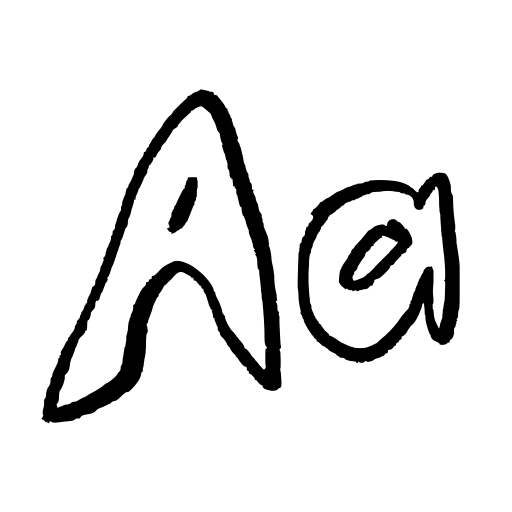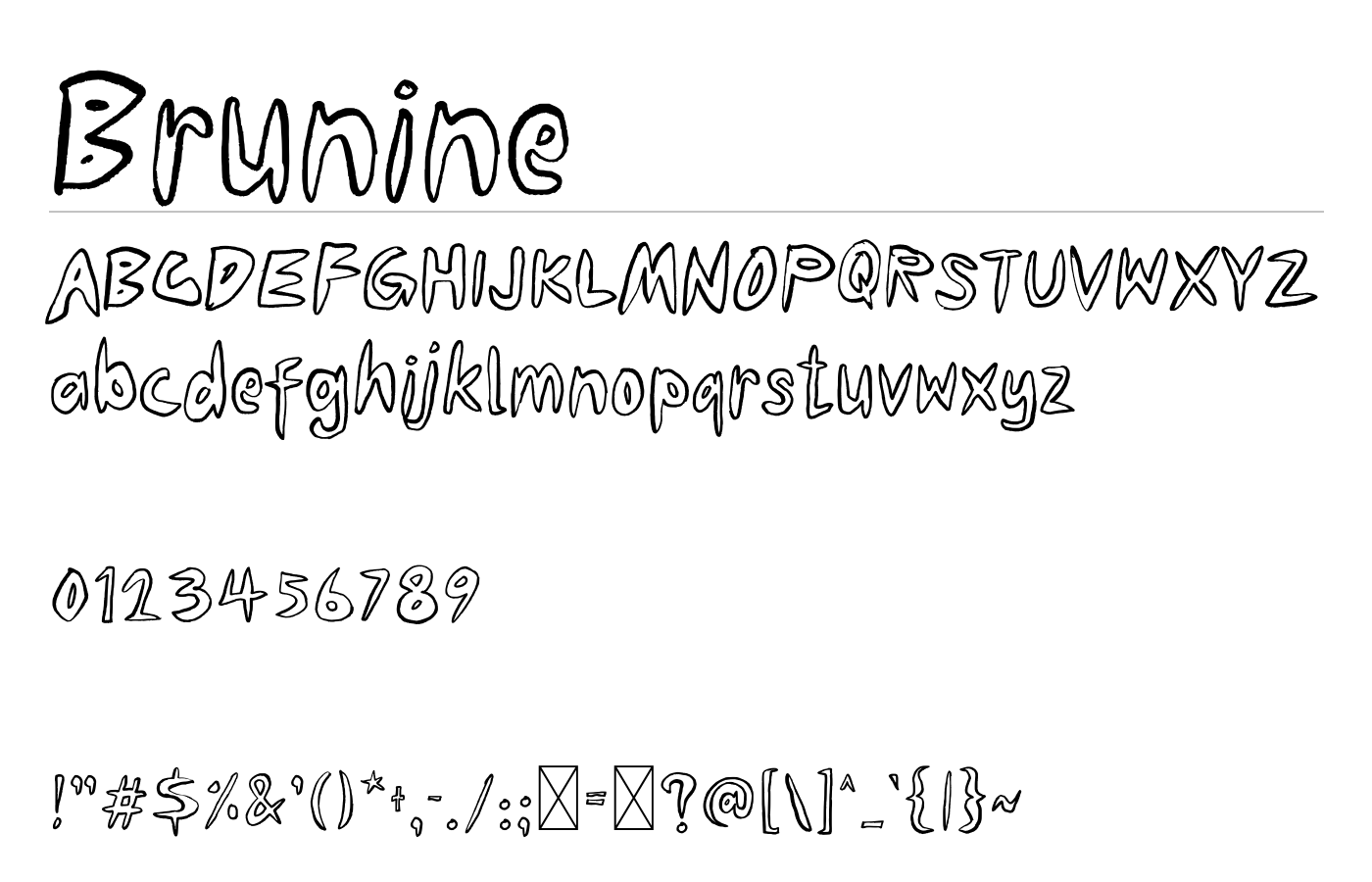
Brunine is a playful, hand-drawn sans serif font with a casual and whimsical feel. Its uneven strokes and slightly irregular letter shapes give it a lively and approachable character, making it perfect for creative projects, children's books, or informal branding. This font works best in designs that seek a friendly, fun, and personal touch.
Brunine Font
About Brunine Font
| Font family | Brunine Font |
| Designer | Holis Majid |